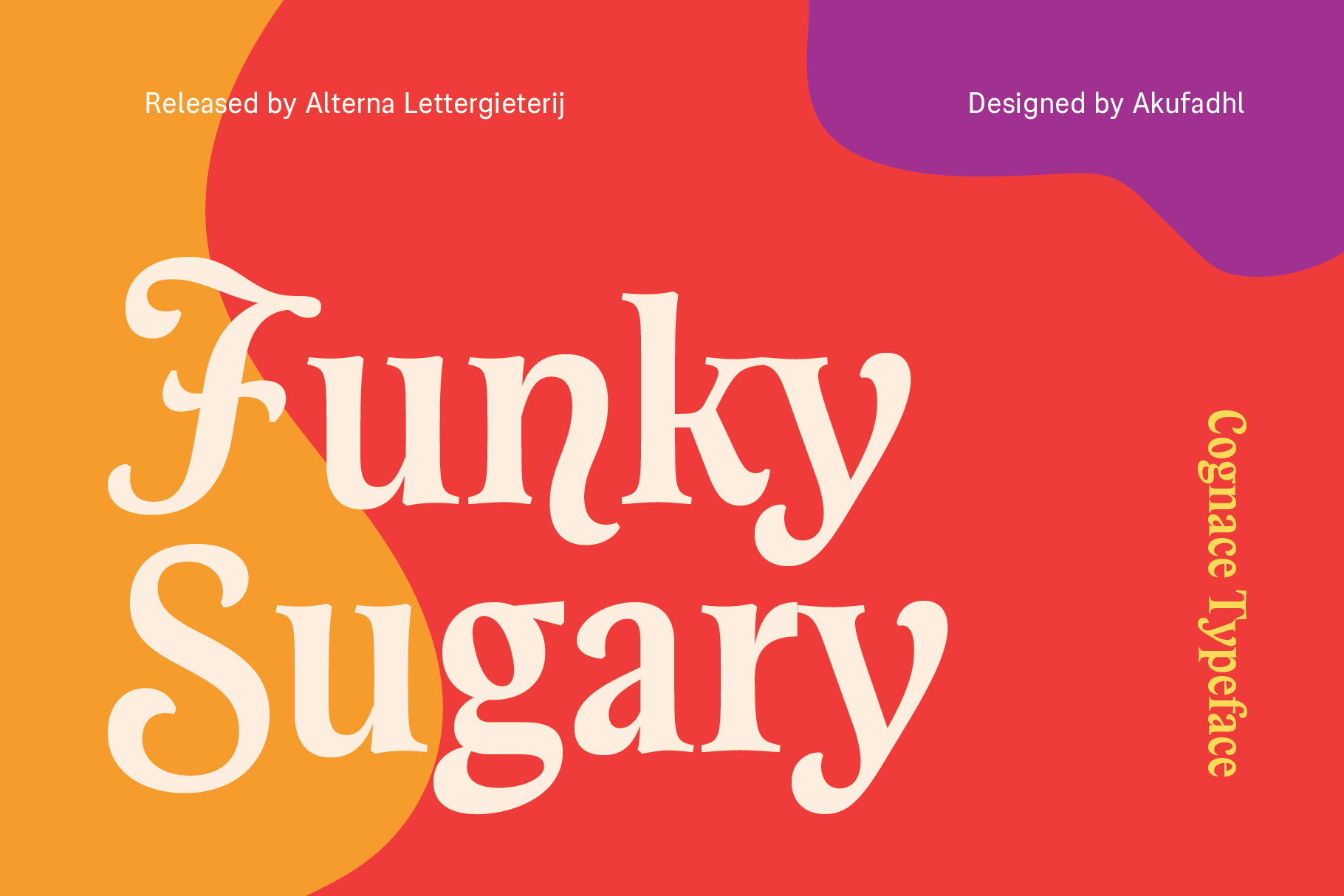
Cognace Typeface
Cognace is display roman style. with a cartoony and playful feels. some swashy capital are present as an alternative character to give the typeface more flavaour.
Inspired by a George Ross speedball lettering called "Art Lettering with a stump brush or a "D" pen". cognace offers its own funk yet sharp feels. support more than 40 latin based languages including vietnamese.